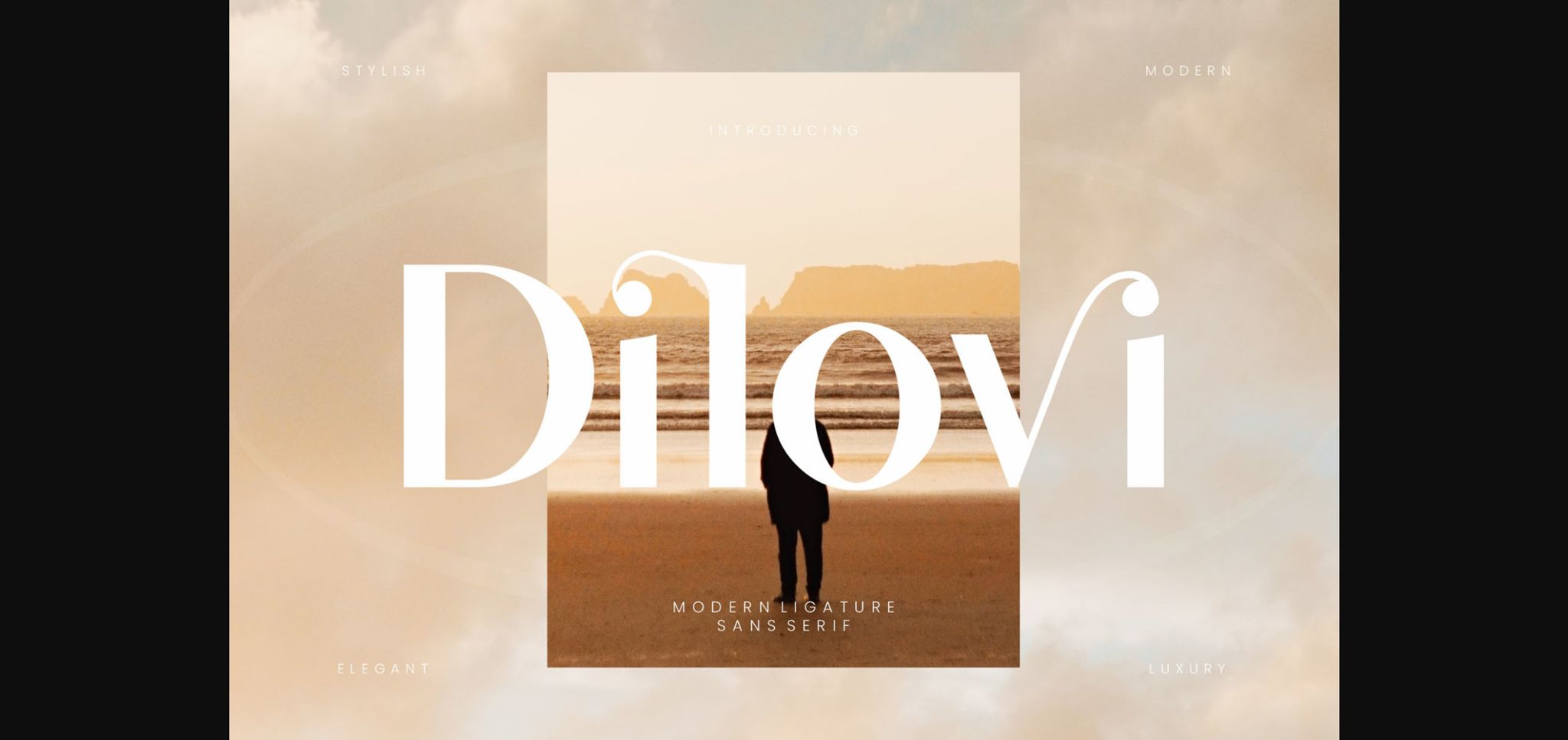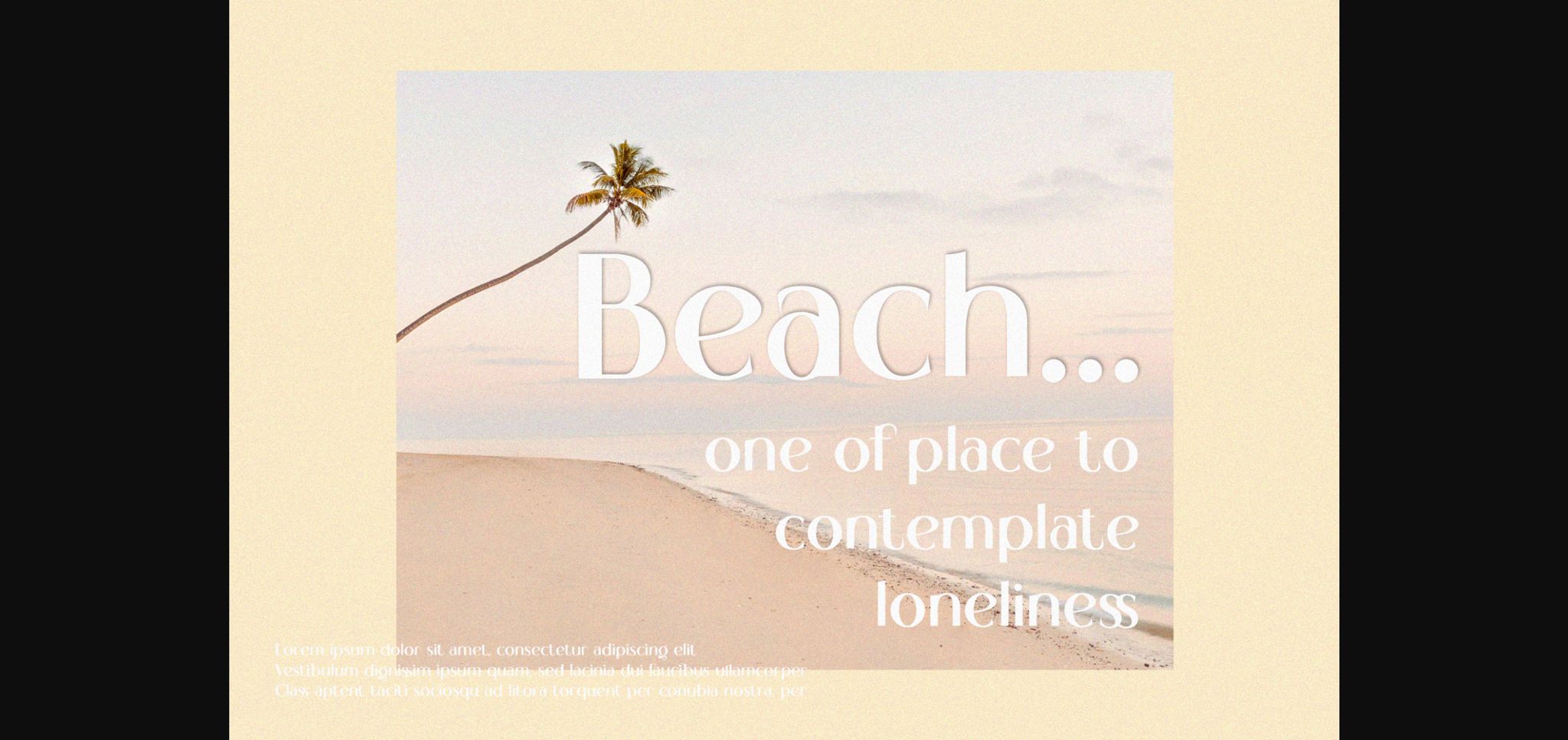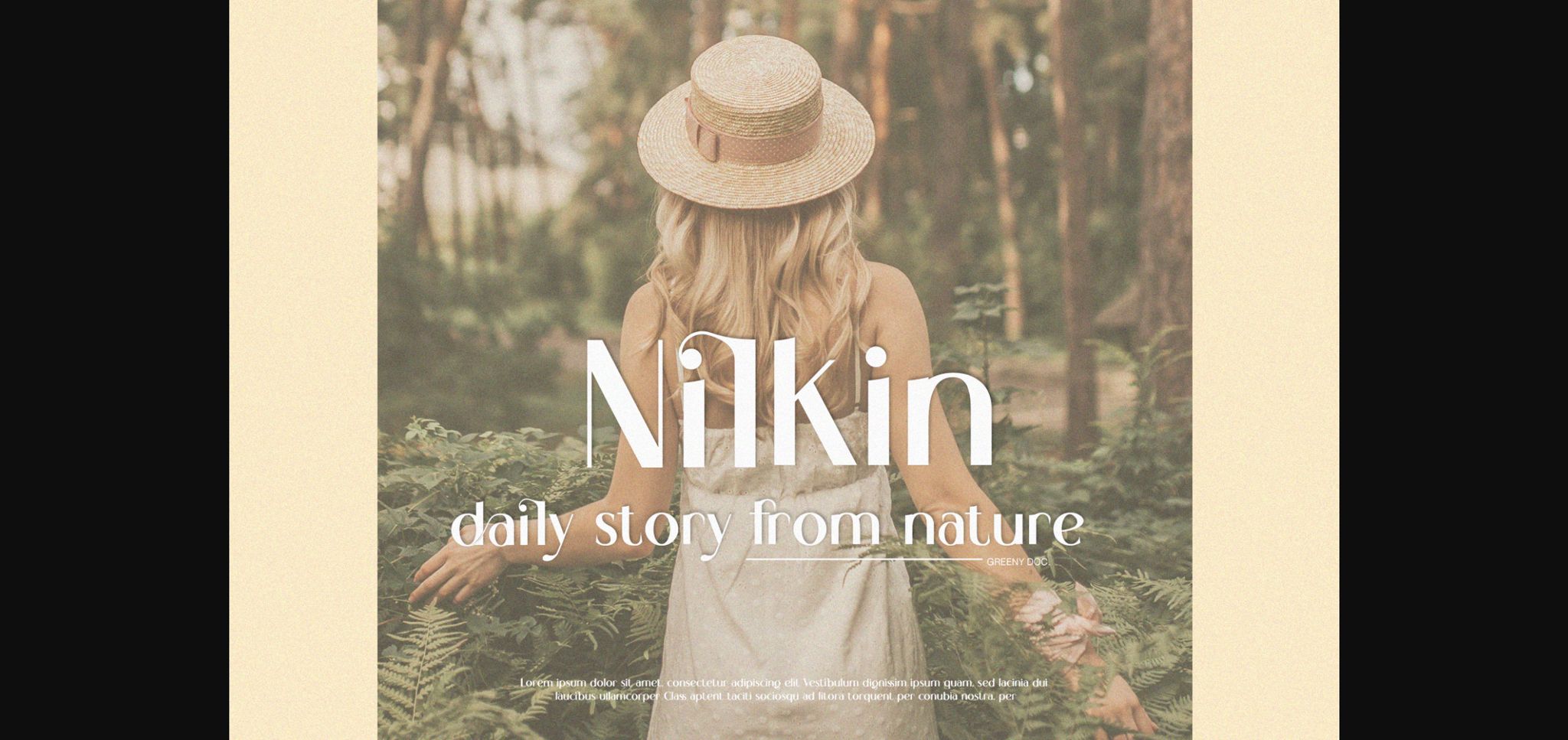
About Dilovi Font
Dilovi is a sans serif font with simple, clean, and visual elegance. Specially designed for chic projects, perfectly suitable for creating stylish lifestyle designs such as logos, titles, and more! Dilovi is PUA encoded which means you can access all the glyphs and ligatures with ease!